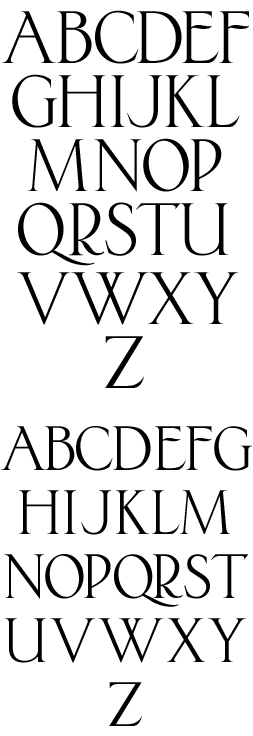
Inspired by Walter Corrie's book featuring illustrations, lettering and ornamental panel designs from 1904-1921.
Includes numbers, full punctuation & accents